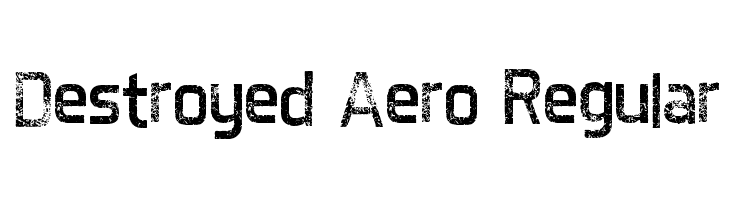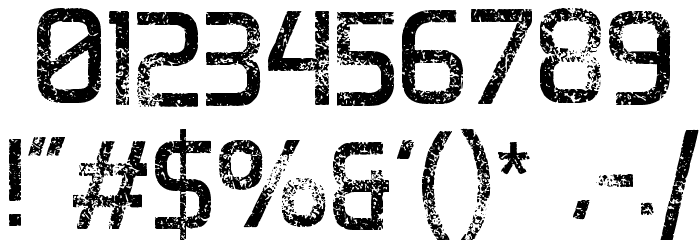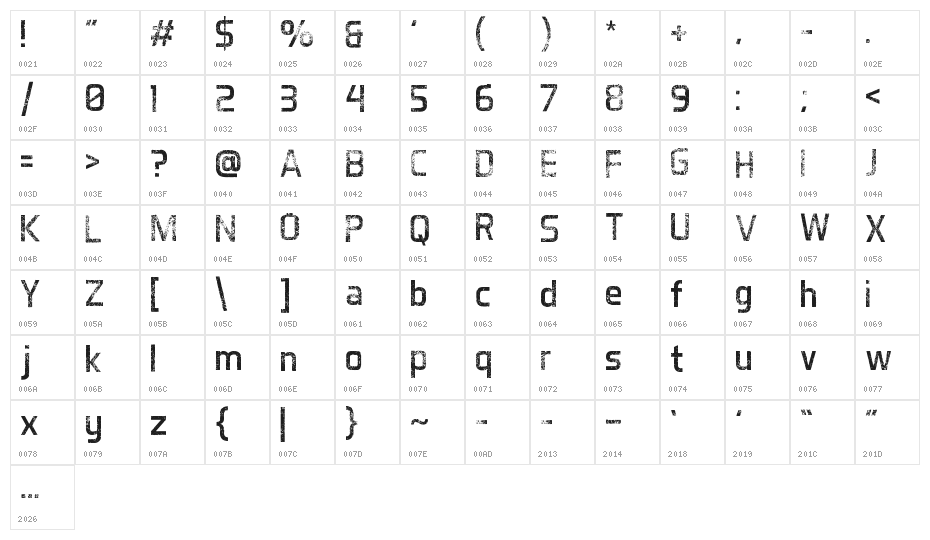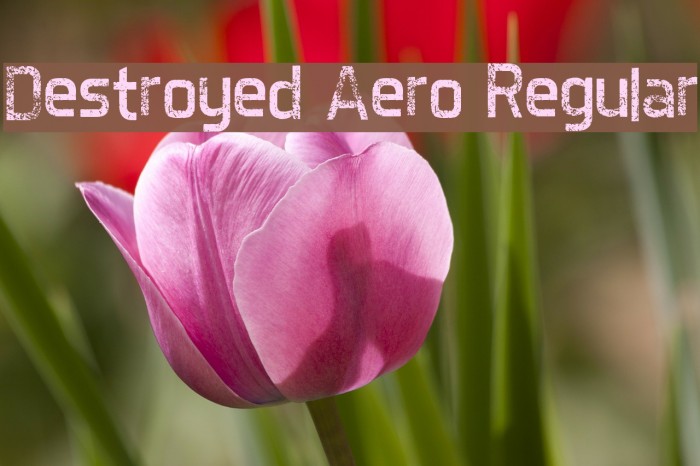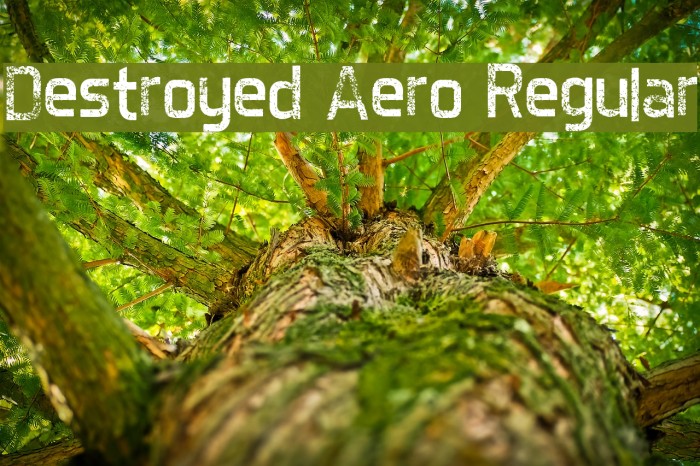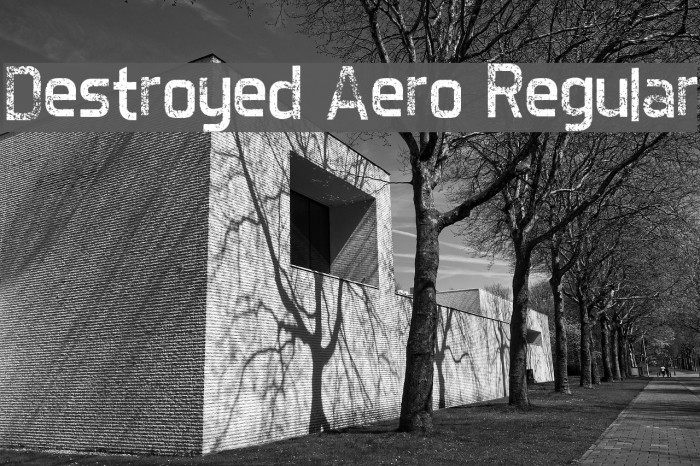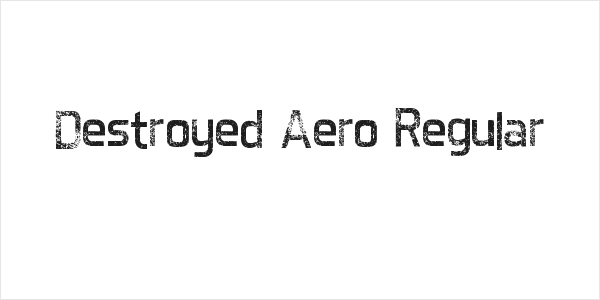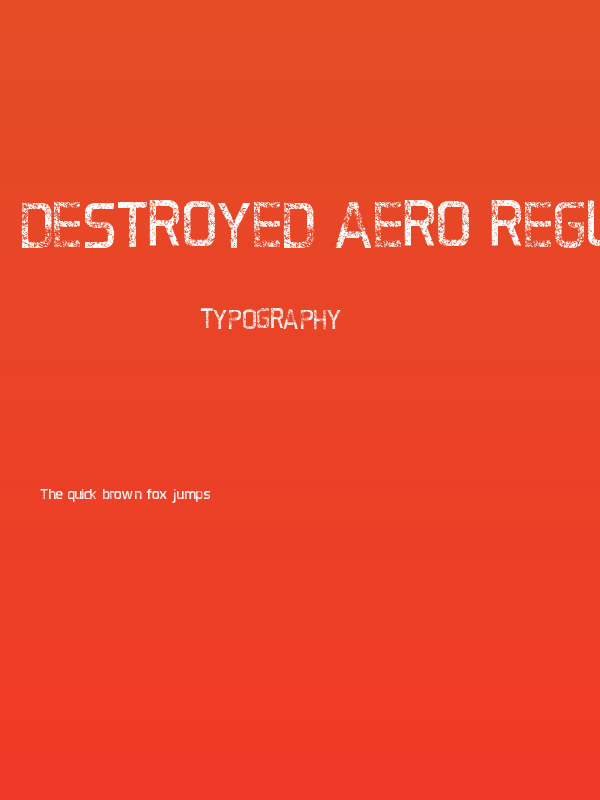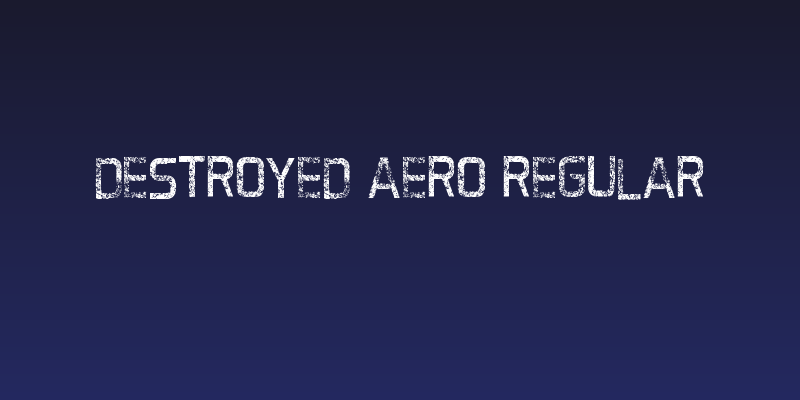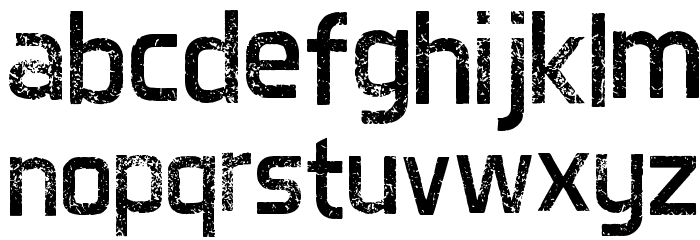
Destroyed Aero Regular Font
Destroyed Aero Regular Description
This font features a distressed, weathered look, giving it a rugged and edgy appearance. The characters are bold and have a textured, grunge effect that suggests wear and tear, making it ideal for projects that require a raw, industrial feel. The uppercase and lowercase letters are consistent in style, with numbers and special characters following the same aesthetic. The font's unique design makes it stand out, adding character and depth to any text it is used in.
| Proposed Projects | Ideal for album covers, posters, branding for edgy or alternative brands, and any project needing a gritty, industrial vibe. |